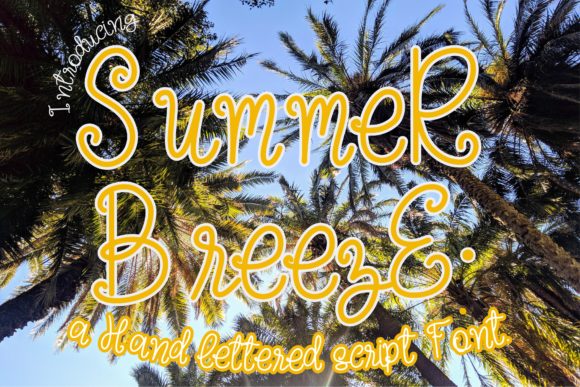
Dive into the world of Summer Breeze Font, an enchanting creation by KtwoP that embodies the essence of summer! This captivating script font dances across your screens with its charming handwritten style, adding a touch of whimsy and warmth to all your projects.
Summer Breeze Font is the perfect choice for those seeking to infuse their designs with a personal touch. Its carefully crafted characters exude a friendly and inviting aura, making it ideal for creating heartfelt notes, personalized invitations, and social media posts that resonate with your audience.
Beyond its aesthetic appeal, Summer Breeze Font is a versatile gem that seamlessly adapts to a myriad of creative endeavors. Whether you're crafting logos that exude elegance or designing packaging that captures attention, this font will elevate your creations with its effortless charm.
If you're seeking fonts for Instagram that ignite engagement, Summer Breeze Font is your secret weapon. Its captivating strokes and playful ligatures will transform your posts into mini masterpieces, leaving a lasting impression on your followers.
But Summer Breeze Font's versatility doesn't end there. Unleash your inner artist and experiment with its strokes in DIY projects that radiate creativity. From handwritten letters that express your heartfelt sentiments to personalized gifts that carry a touch of warmth, this font will empower you to create truly unique keepsakes.
Summer Breeze Font is not just a font; it's an invitation to embark on a creative journey filled with joy and imagination. Its enchanting handwritten style will captivate your audience, while its versatility will empower you to explore endless possibilities.